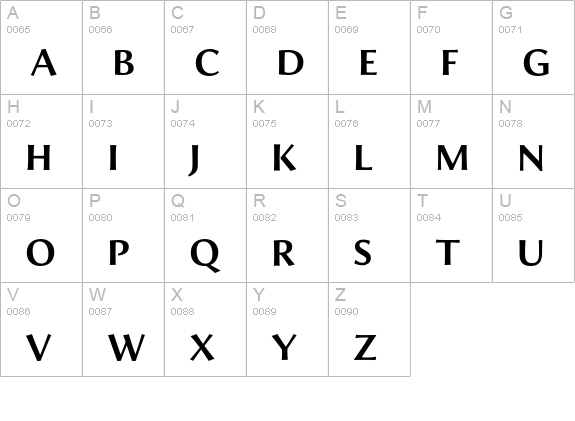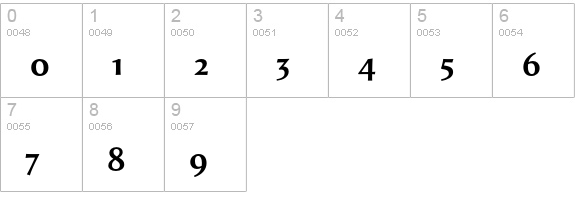
ShellSansExpert-Bold Font Details
ShellSansExpert-Bold is a strong, high-contrast variant in the ShellSansExpert typeface family \xE2\x80\x94 well suited to headlines, attention-grabbing titles, and strong calls-to-action.
ShellSansExpert-Bold is a remarkable font that exudes confidence and professionalism. Its bold and strong appearance makes it perfect for headlines, titles, and any other text that needs to make a bold statement. This font boasts a unique balance between modernity and classic elegance, making it suitable for a wide range of design projects. With its clean lines and refined curves, ShellSansExpert-Bold captures attention effortlessly, adding a touch of sophistication to any design. Not only does ShellSansExpert-Bold offer exceptional visual appeal, but it also provides excellent legibility across various mediums. Whether it's used in print or digital formats, this font ensures that your message is conveyed with clarity and impact. One of the most outstanding features of ShellSansExpert-Bold is that it is freely available to download at FontsMarket.com. This means that designers, creative professionals, and enthusiasts can easily access and utilize this font without any cost. It's a fantastic opportunity to elevate your design projects without breaking the bank. In conclusion, ShellSansExpert-Bold is a versatile and eye-catching font that combines modernity with timeless elegance. Its bold appearance and excellent legibility make it a powerful tool for creating impactful designs. And with its availability as a free download at FontsMarket.com, there's no reason not to add this remarkable font to your collection.